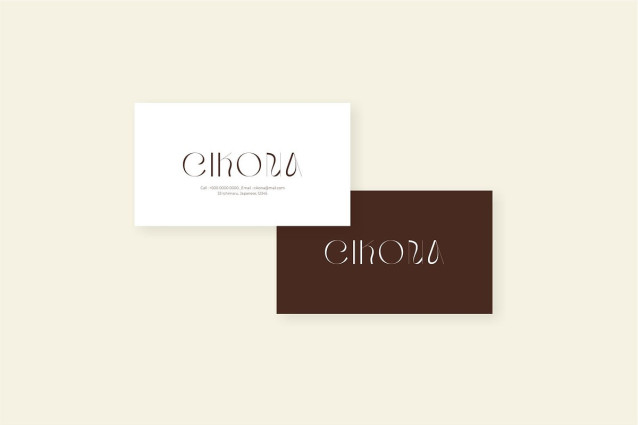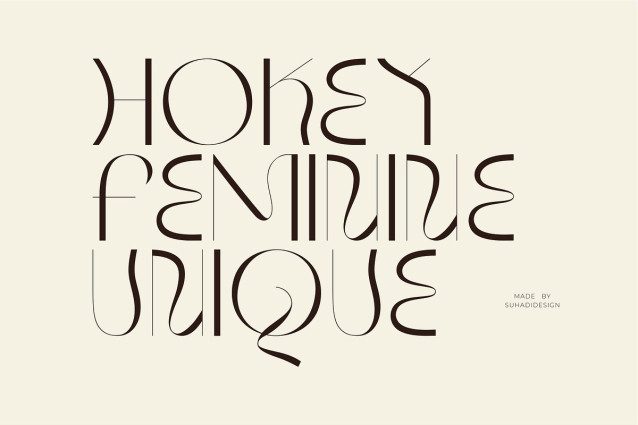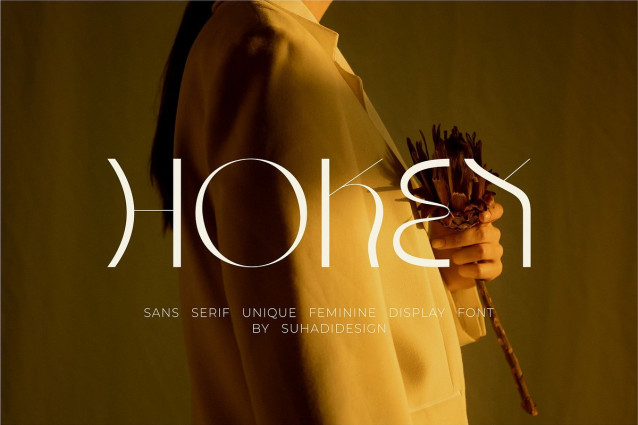
Hokey Font
Hokey Font is a unique and feminine sans serif font. With its unique and modern design, this font is popular in the market. We always keep this font elegant, classy and stylish. Hokey font is perfect for logos, packaging, magazines, cosmetics, beauty, branding, lettering, design, books, publications, branding, brand names, business cards, social media, luxury design, newspapers, branding, beauty and other projects. Hokey font is created to enhance the quality of your designs.